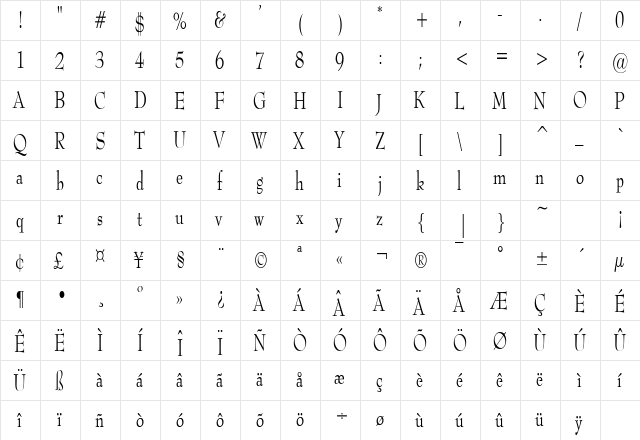
TopHatCondensed Regular
Design Context for TopHatCondensed Typeface
TopHatCondensed offers clean, dependable letterforms without strong stylistic allegiance, making it a practical choice for designers who need flexibility. The condensed width makes it efficient for tight spaces without sacrificing legibility.